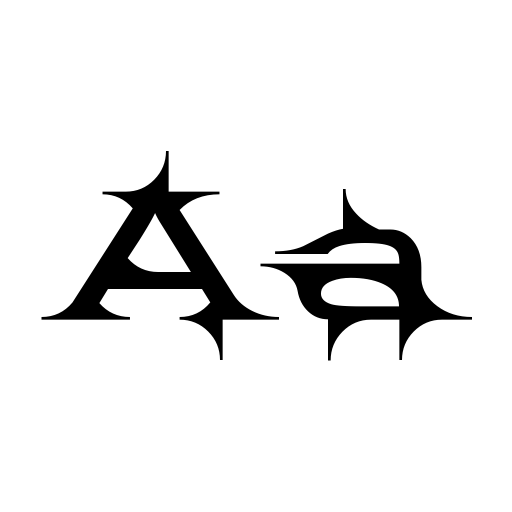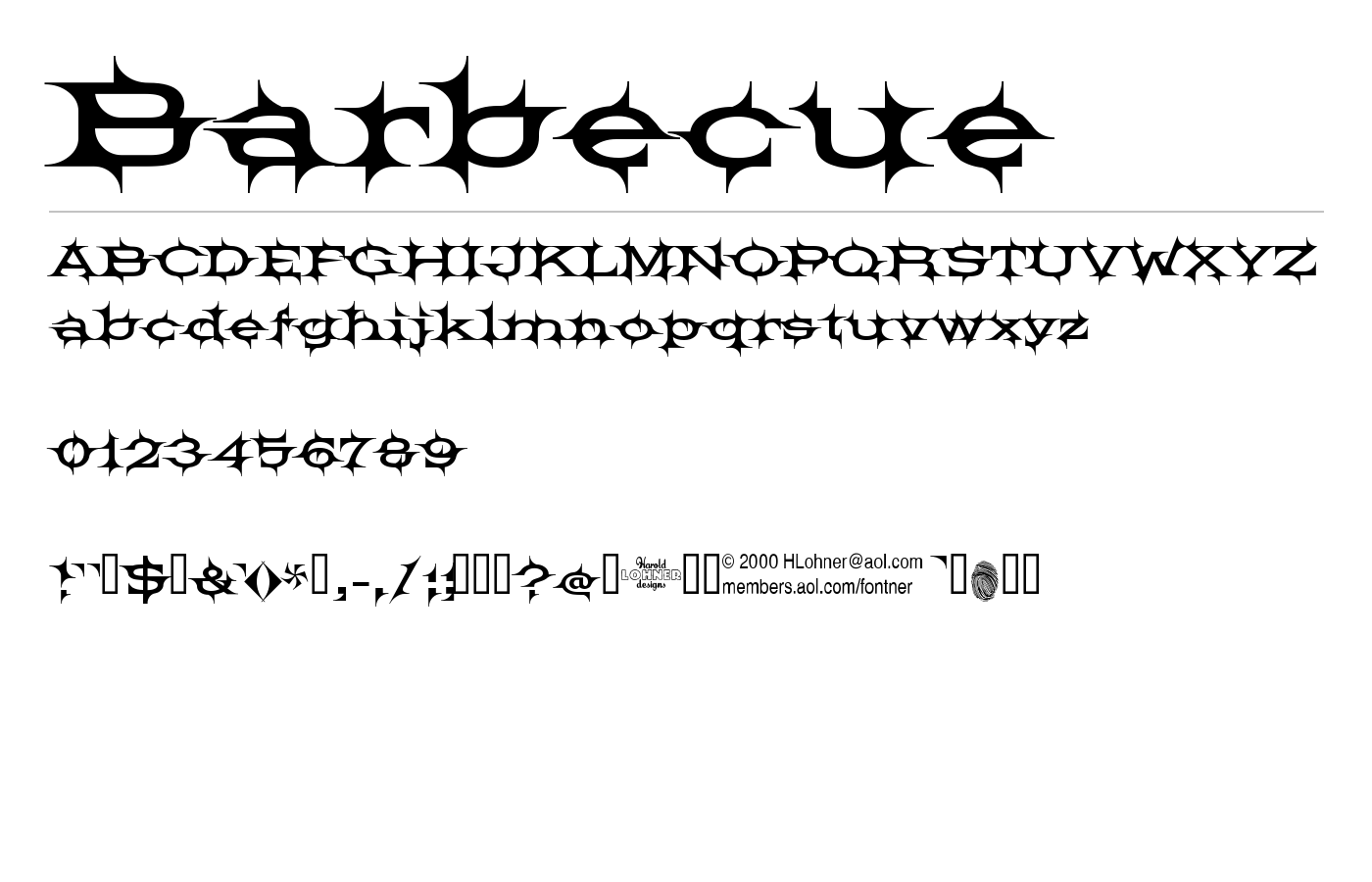
Barbecue is a bold, decorative serif font that features sharp, pointed edges and high contrast between thick and thin strokes, giving it a striking, almost edgy appearance. Its unique, spiked letterforms and tight spacing create a dramatic, intense vibe, making it ideal for attention-grabbing headlines, logos, or themed designs that want to convey a sense of boldness and distinctiveness.
Barbecue Font
About Barbecue Font